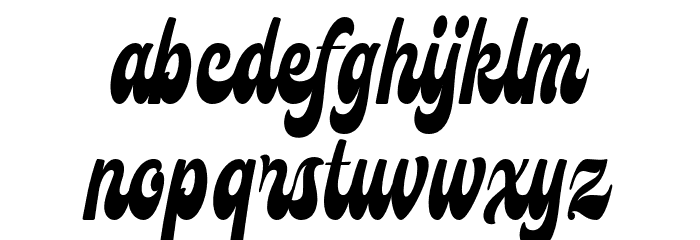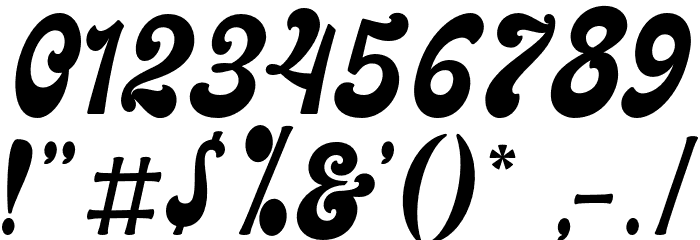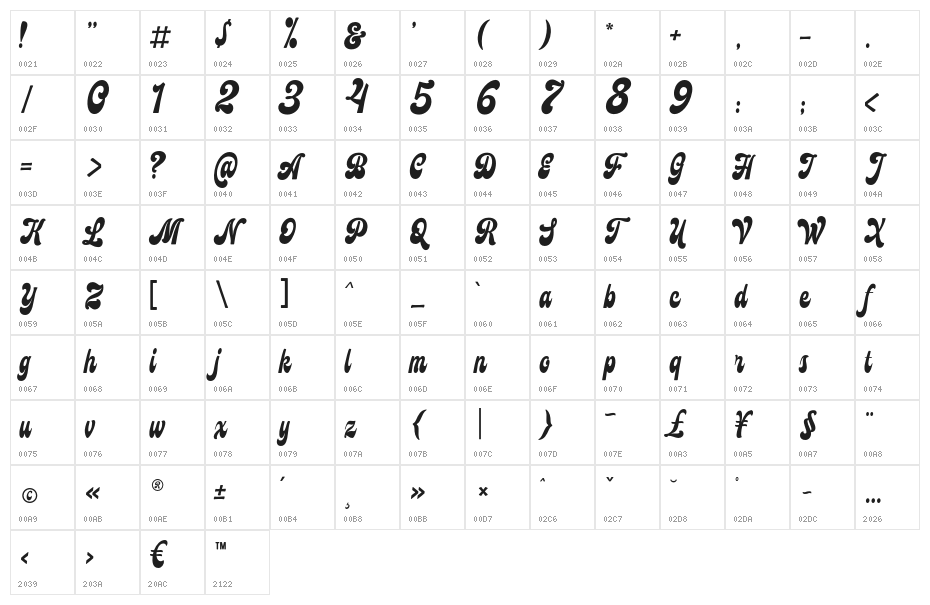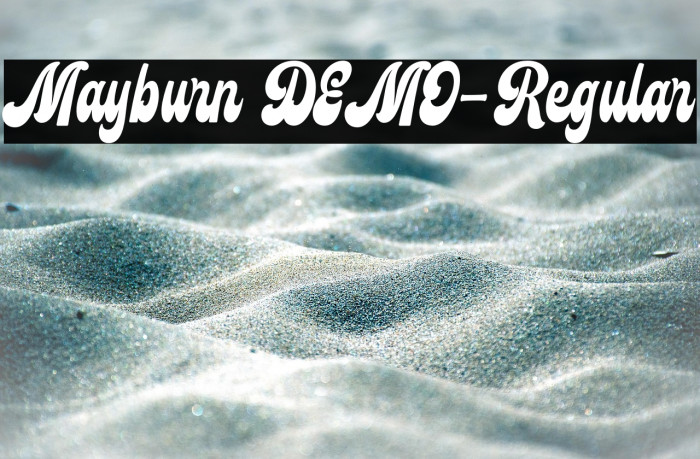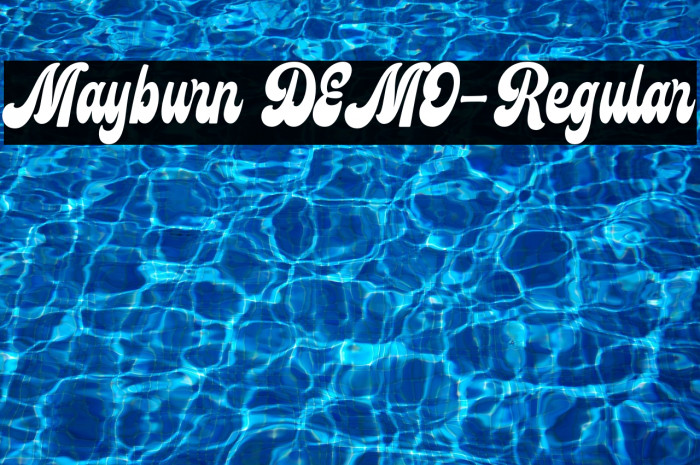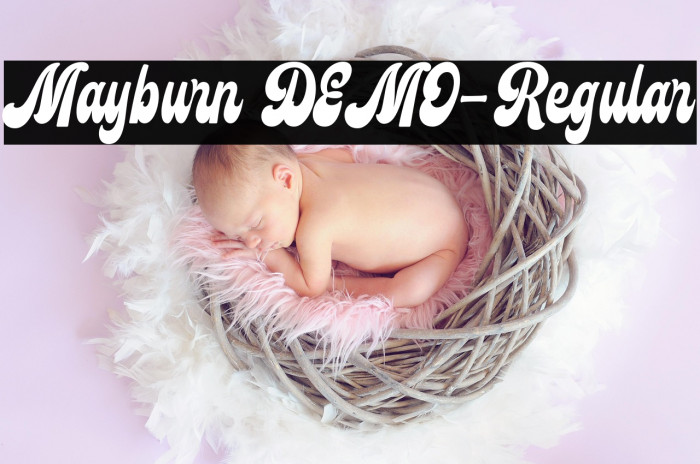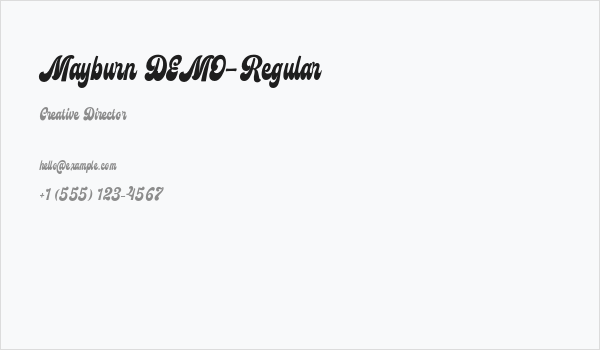
Mayburn DEMO-Regular Font
This font features a bold and expressive script style with a strong presence. The characters are designed with a flowing, cursive appearance, giving it a dynamic and lively feel. The strokes are thick and rounded, providing a sense of boldness and confidence. Each letter connects seamlessly, enhancing the script's fluidity and elegance. The numbers and special characters maintain the same stylistic approach, ensuring consistency across all elements. This font is ideal for projects that require a touch of personality and flair.
A bold, expressive script font with flowing, cursive characters.
- Proposed Projects: Ideal for branding, invitations, posters, and any design needing a personal touch.
- Category: Script
- Use Case: Logos, Headlines, Invitations